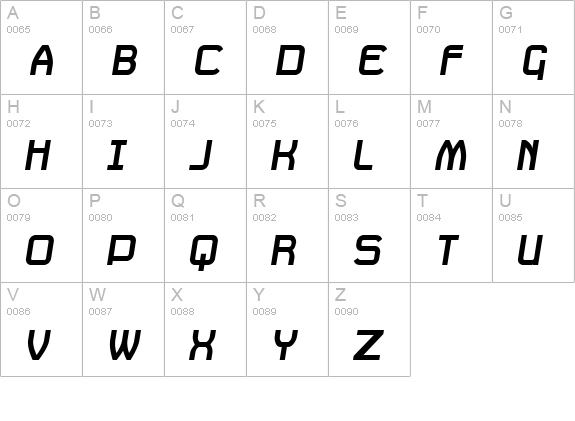
Daville Slanted Font Details
Introducing Daville Slanted font, a sleek and modern typeface designed to add a touch of sophistication to your projects. With its unique slanted style and elegant letterforms, Daville Slanted is sure to make a statement in any design application. This versatile font is perfect for branding, logos, headlines, and more. Best of all, Daville Slanted is available for free download at FontsMarket.com. Take advantage of this amazing offer and elevate your design projects with the stylish and contemporary Daville Slanted font today!